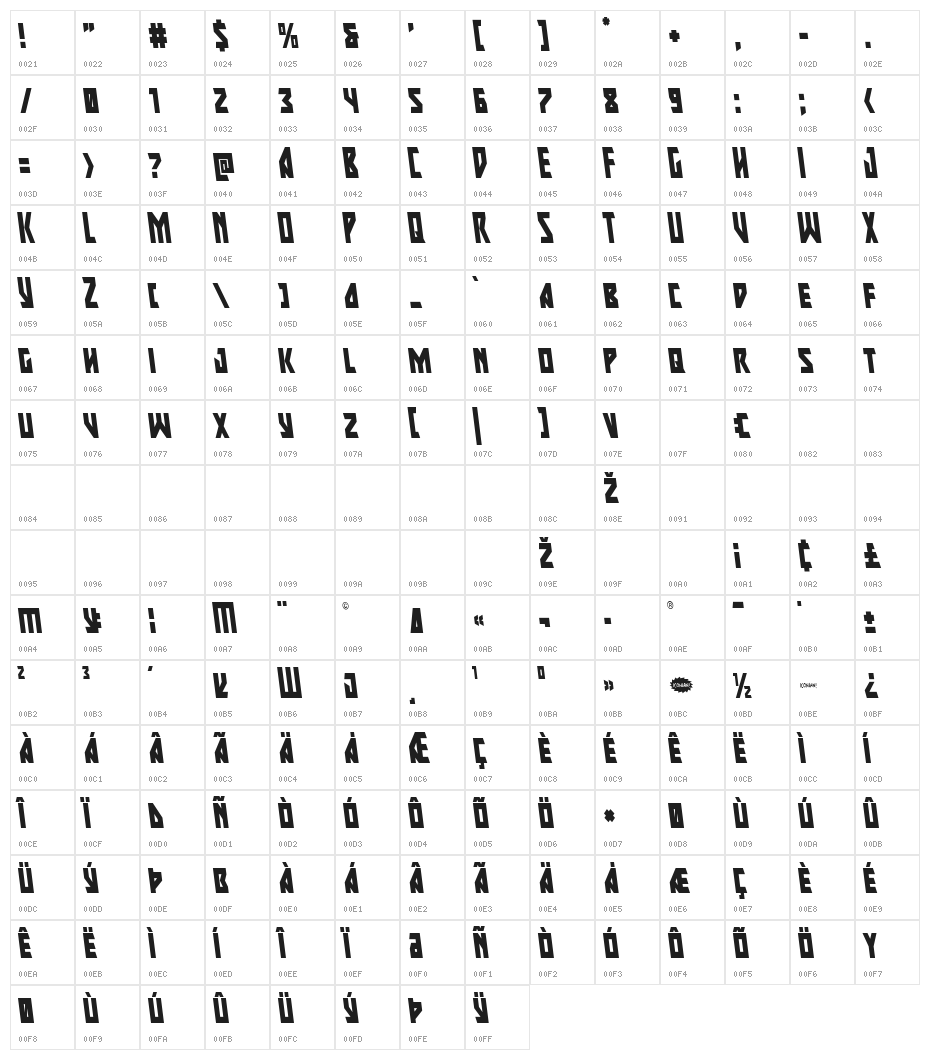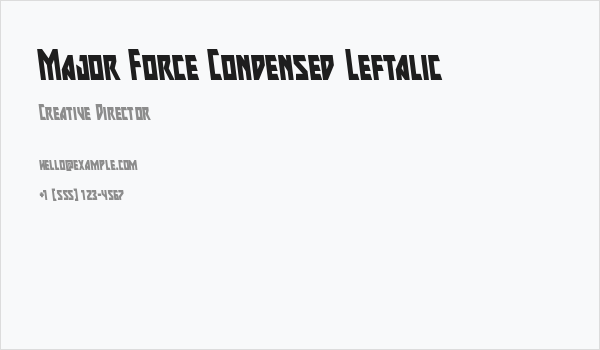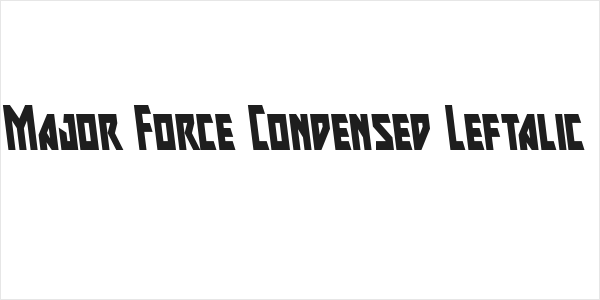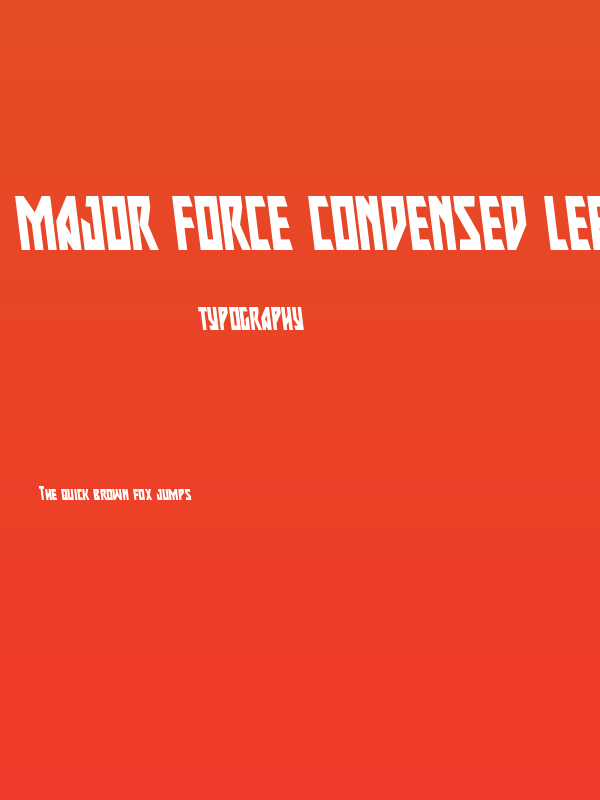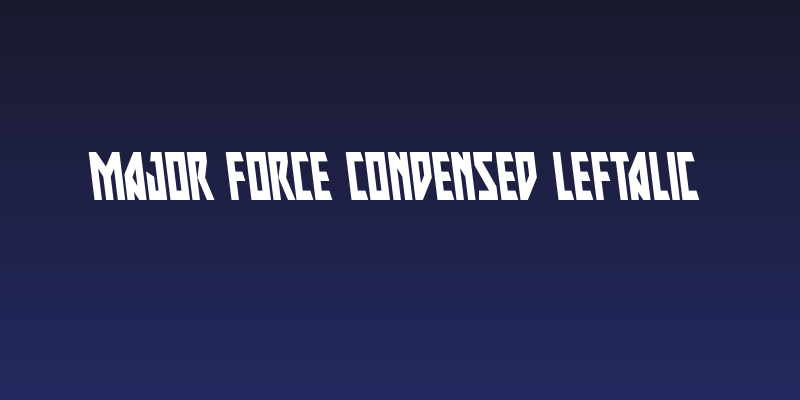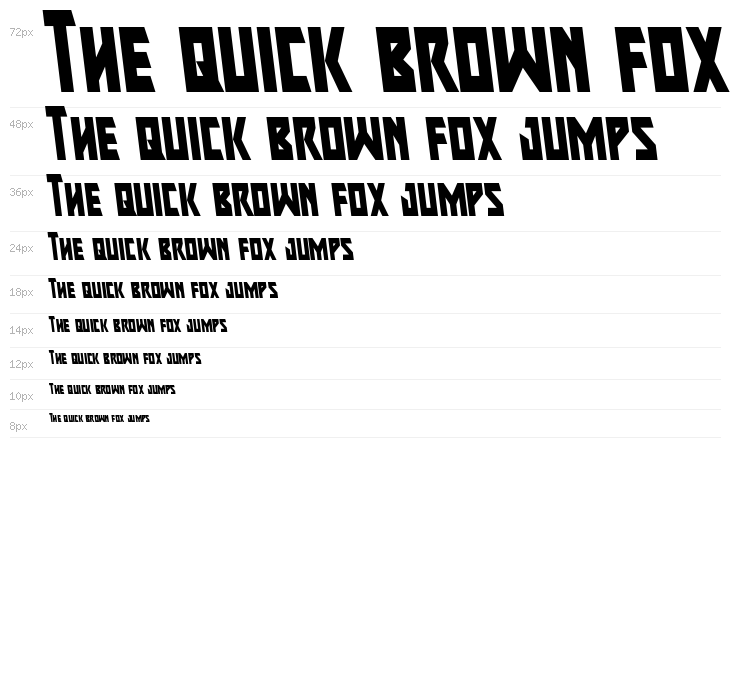
Major Force Condensed Leftalic Font
Major Force Condensed Leftalic Description
This font features a bold and striking design with a condensed and angular style. The characters are sharply defined with a distinct geometric influence, creating a sense of movement and energy. The uppercase and lowercase letters maintain a consistent width, enhancing the condensed appearance. The numbers and special characters follow the same angular and bold aesthetic, ensuring uniformity across all glyphs. This font's unique style makes it ideal for attention-grabbing designs, where a strong visual impact is desired.
Proposed ProjectsIdeal for posters, logos, video game graphics, and any project requiring a dynamic and impactful visual style.